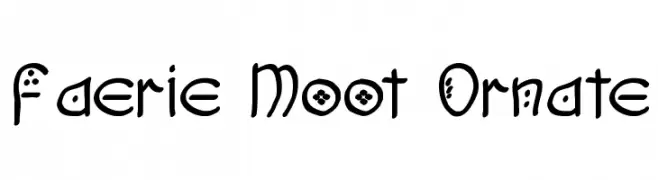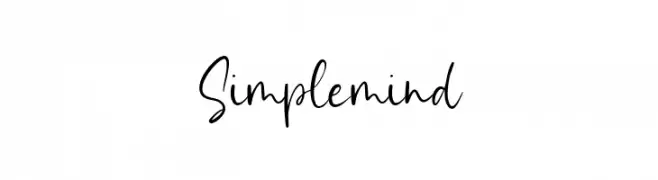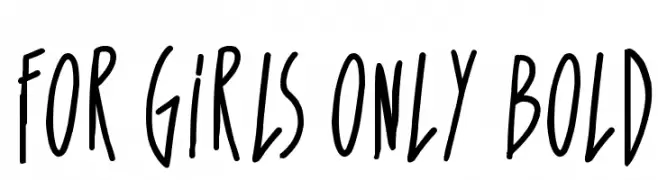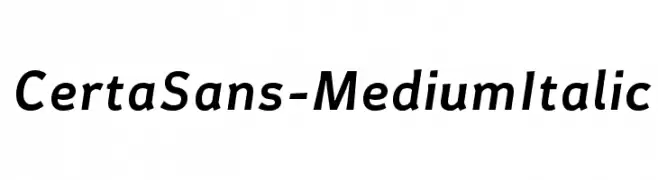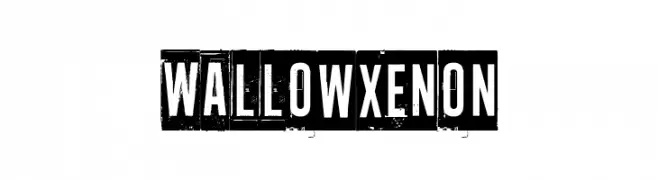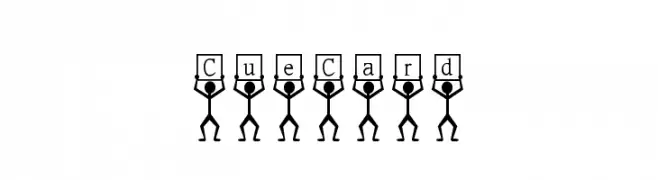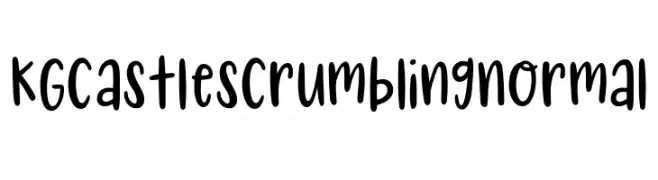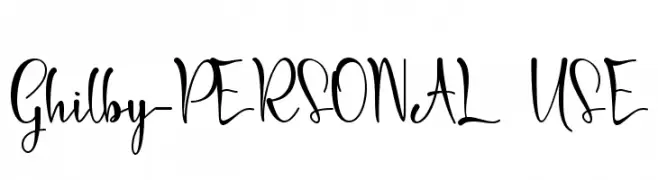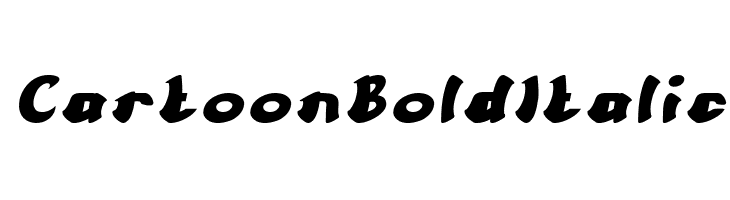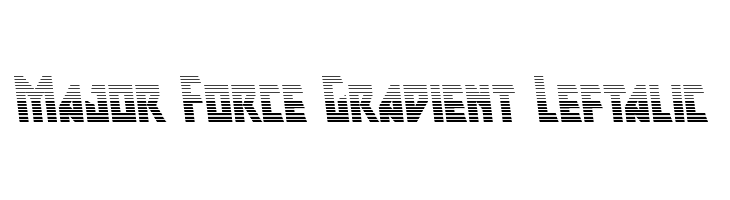
A whimsical, ornate font with decorative elements and a fairy-tale style.
A playful, casual handwritten font with flowing, slightly irregular letterforms.
A bold, handwritten font with a playful and energetic style.
A modern sans-serif font with an italic slant, offering clarity and versatility.
A bold, distressed stencil-style font with a vintage, industrial feel.
A playful font with stick figures holding each character, adding a whimsical touch.
A playful, handwritten font with a casual and friendly style.
A bold, graffiti-inspired font with sharp, angular lines and dynamic energy.
Playful decorative script font.
A bold, dynamic font with a three-dimensional, distorted effect.